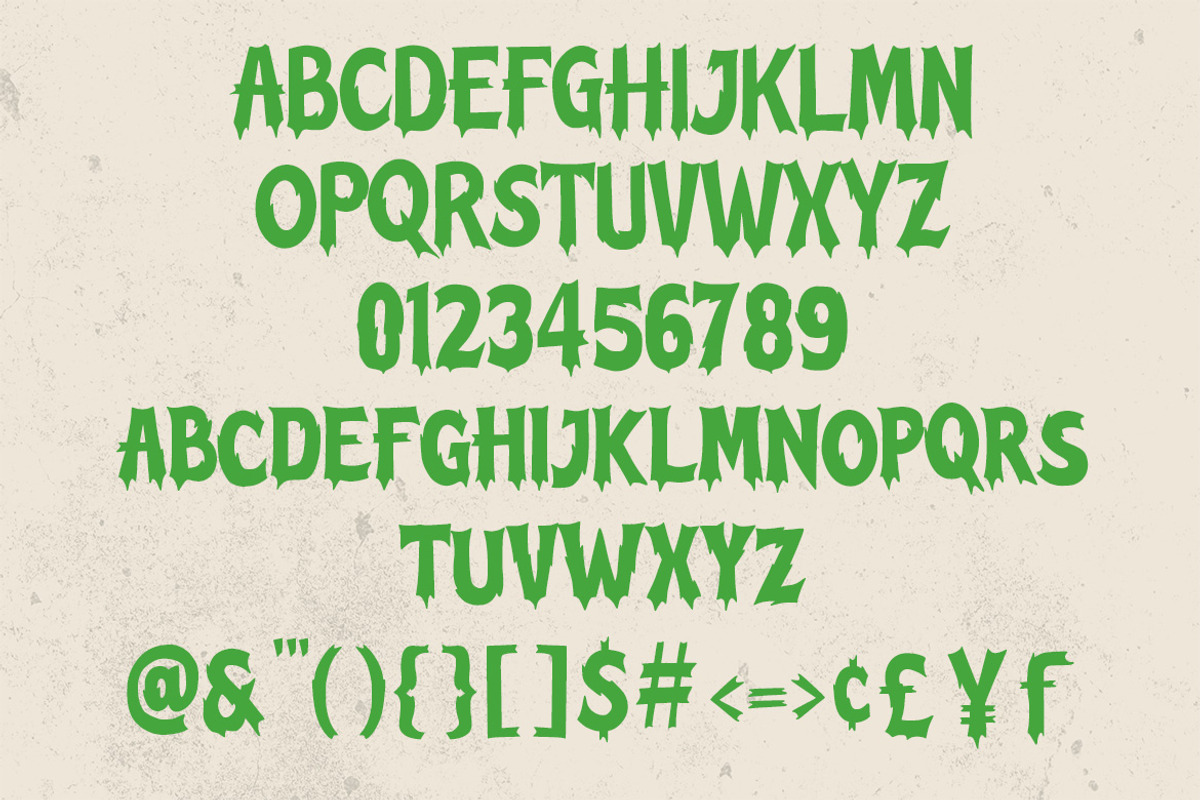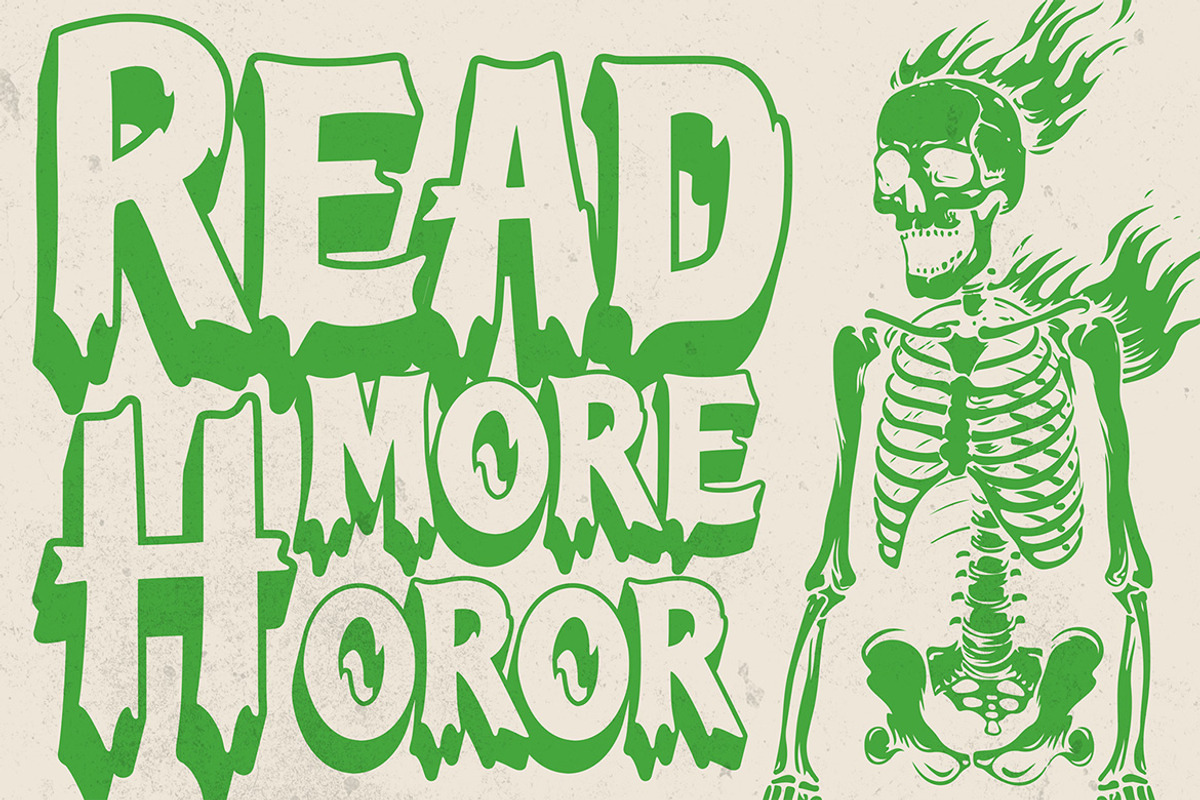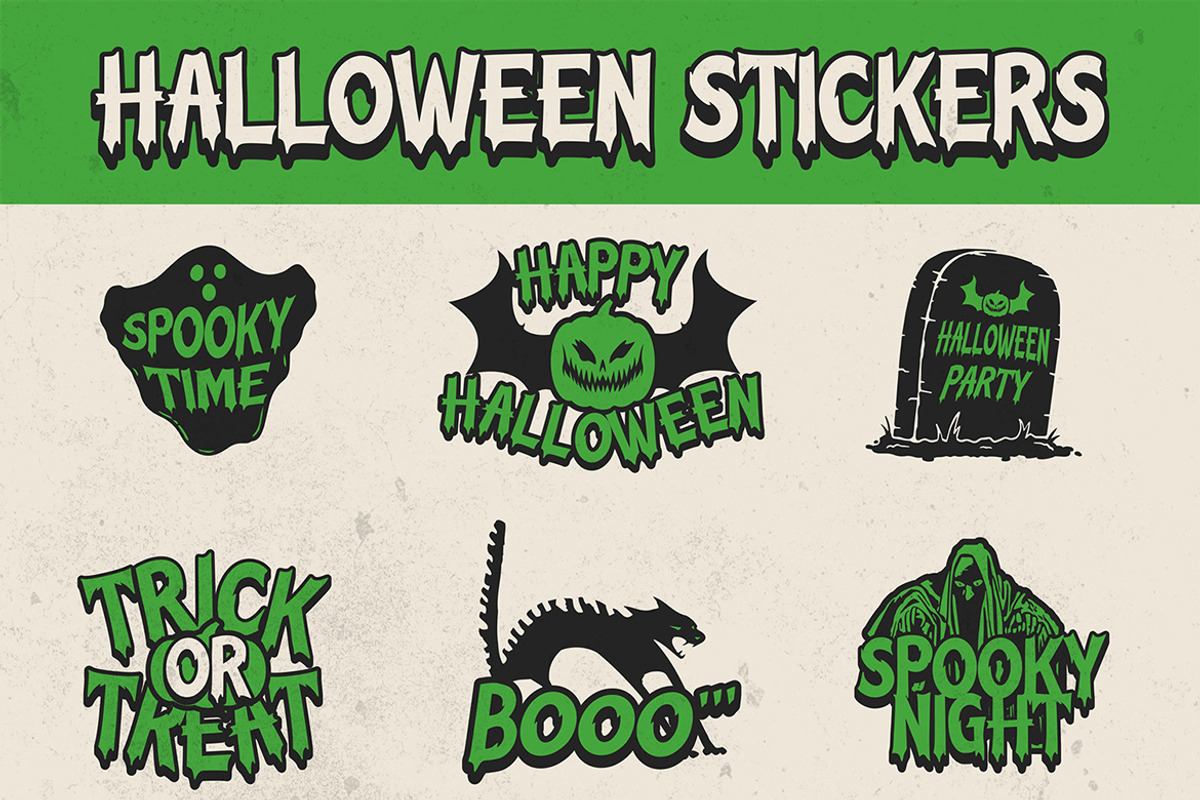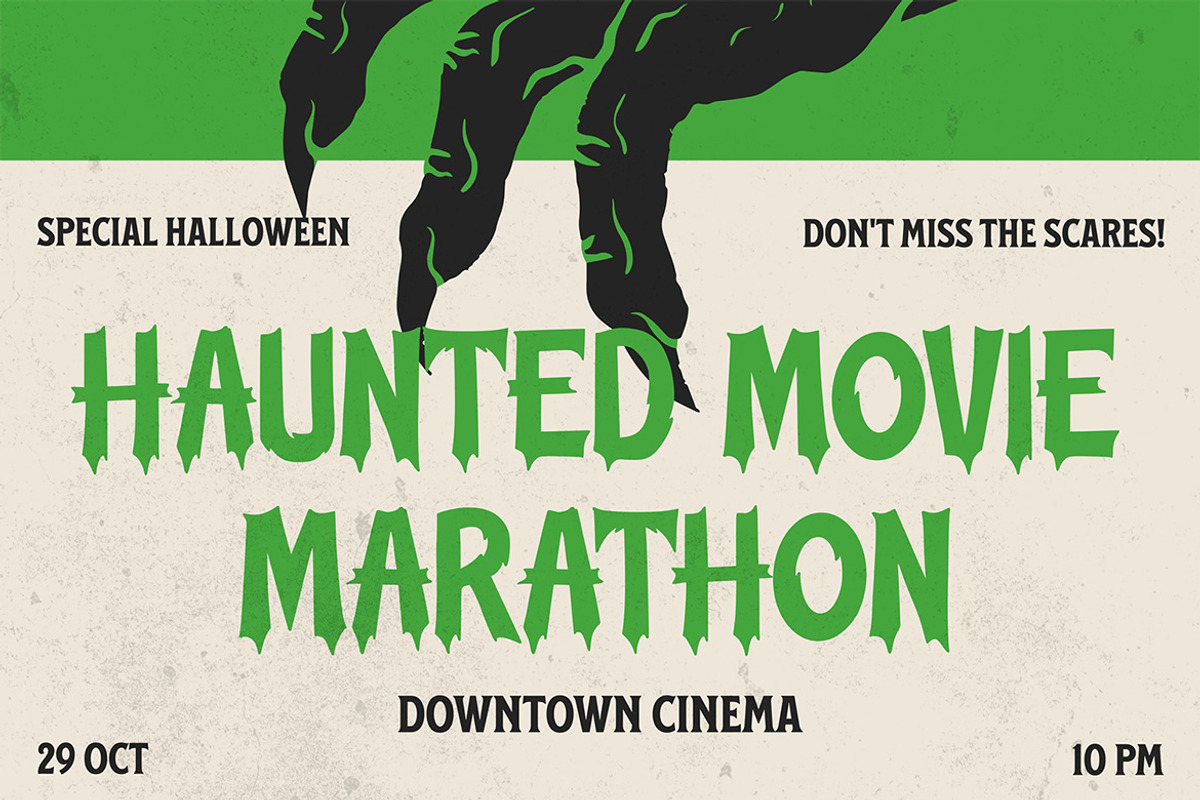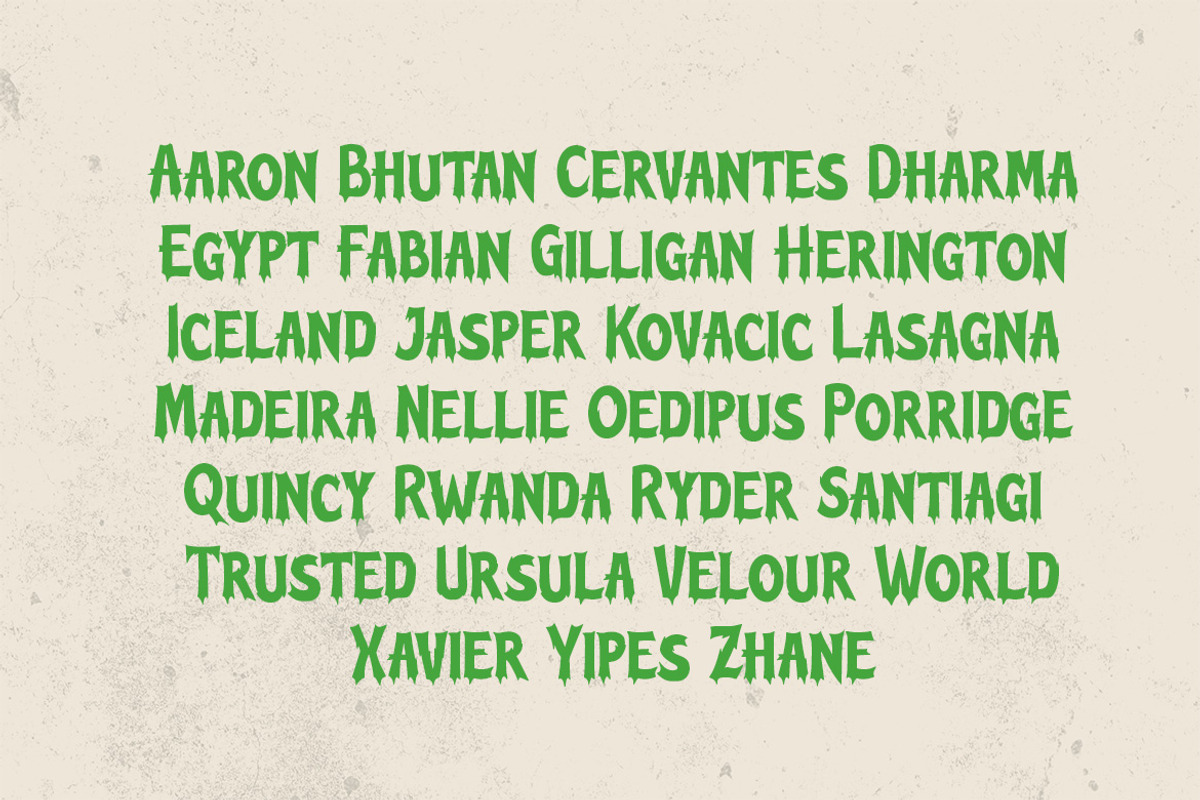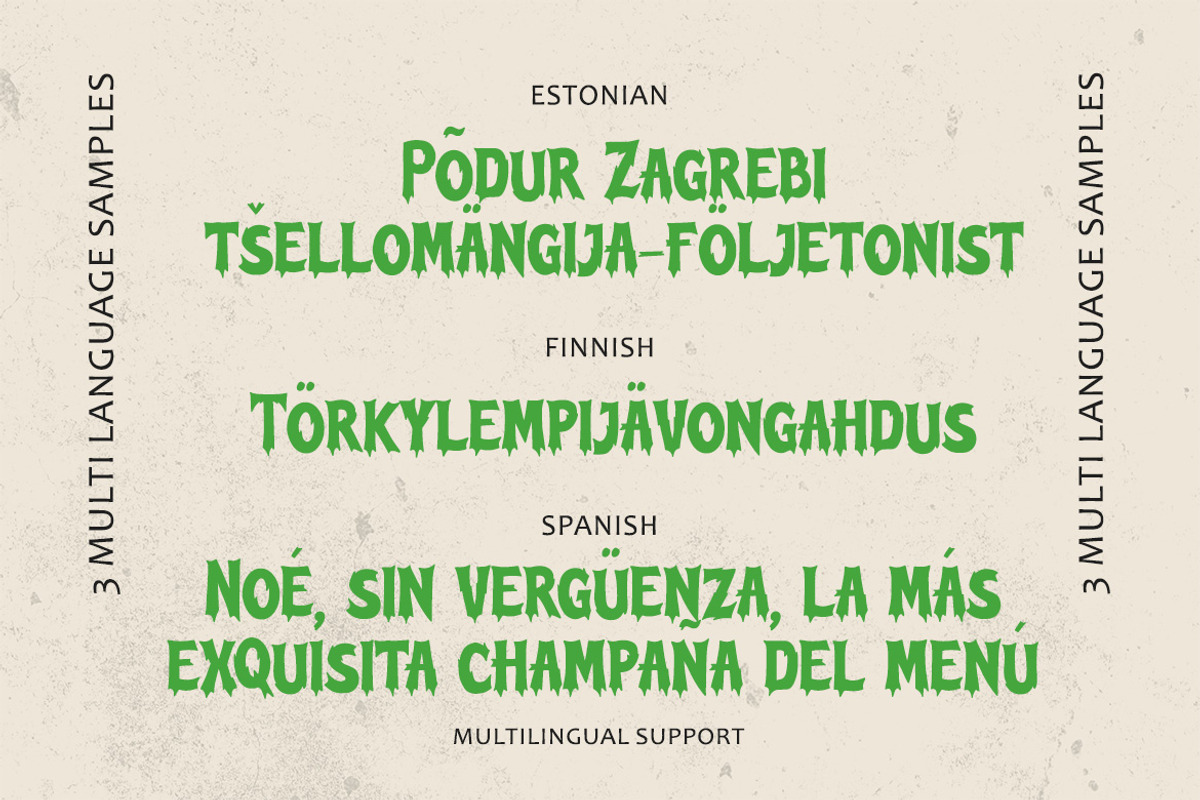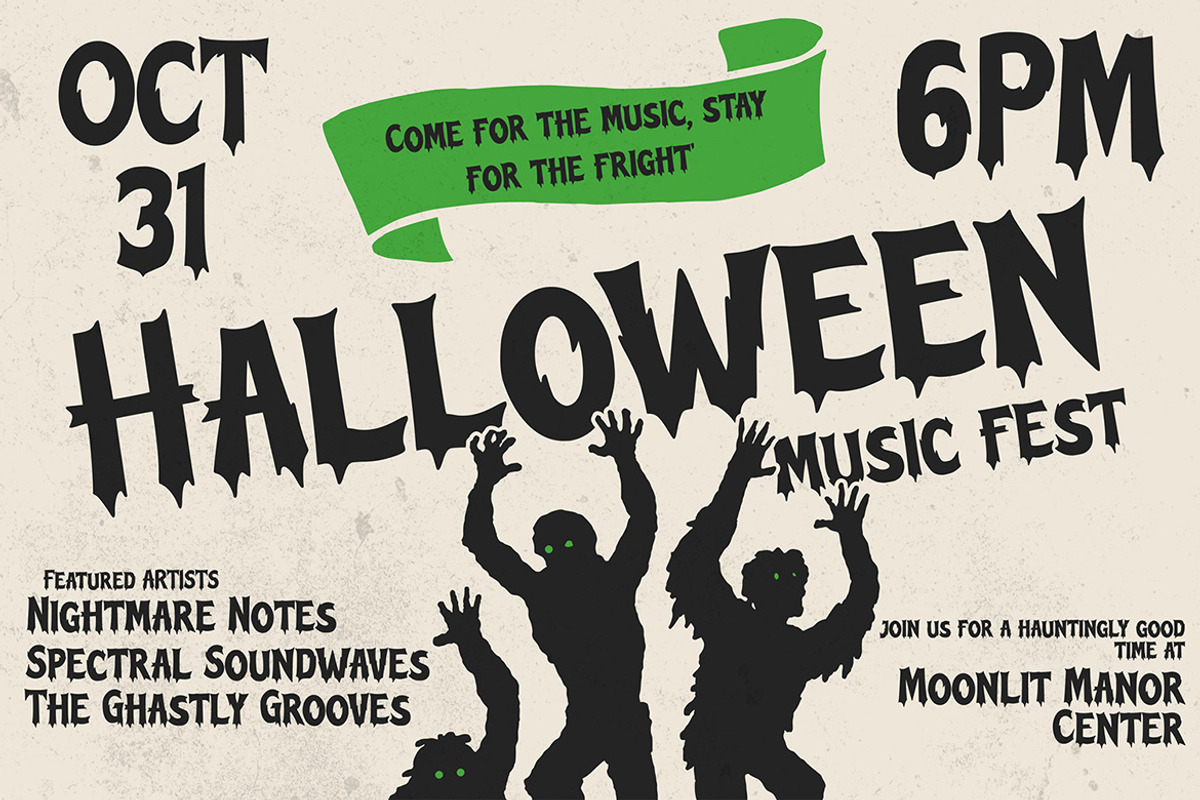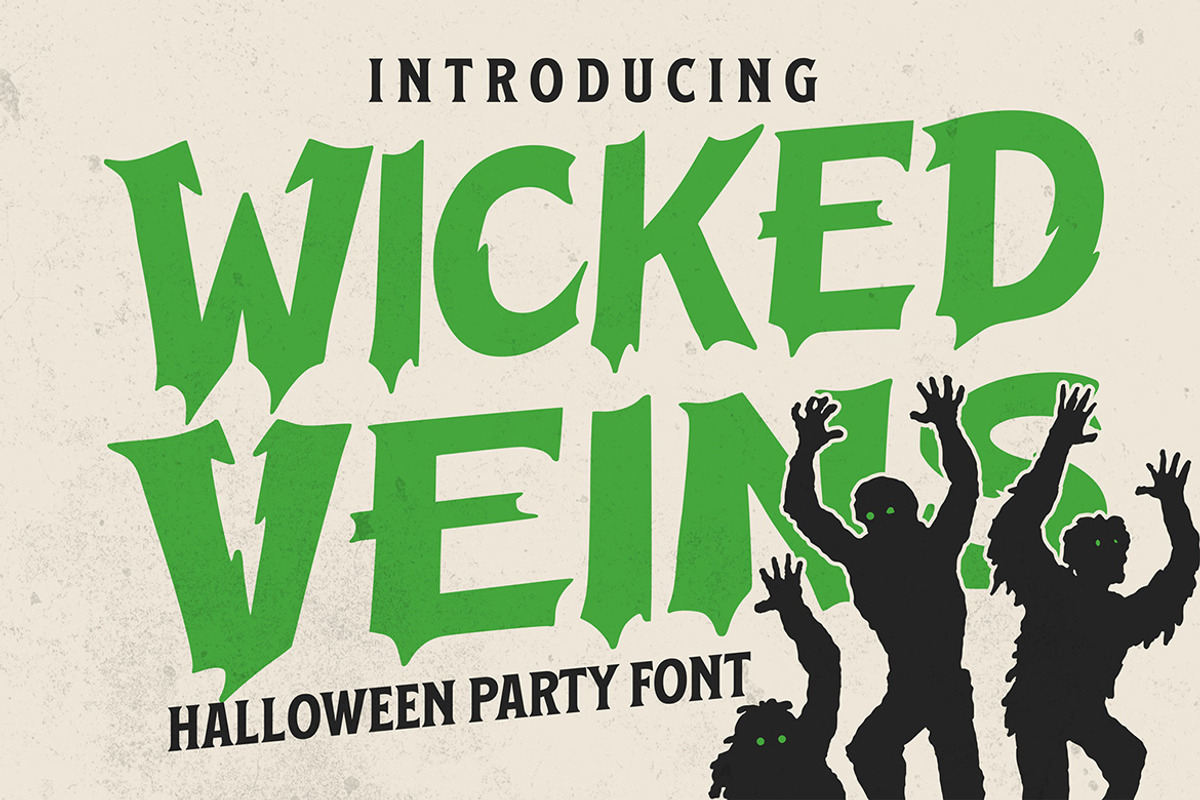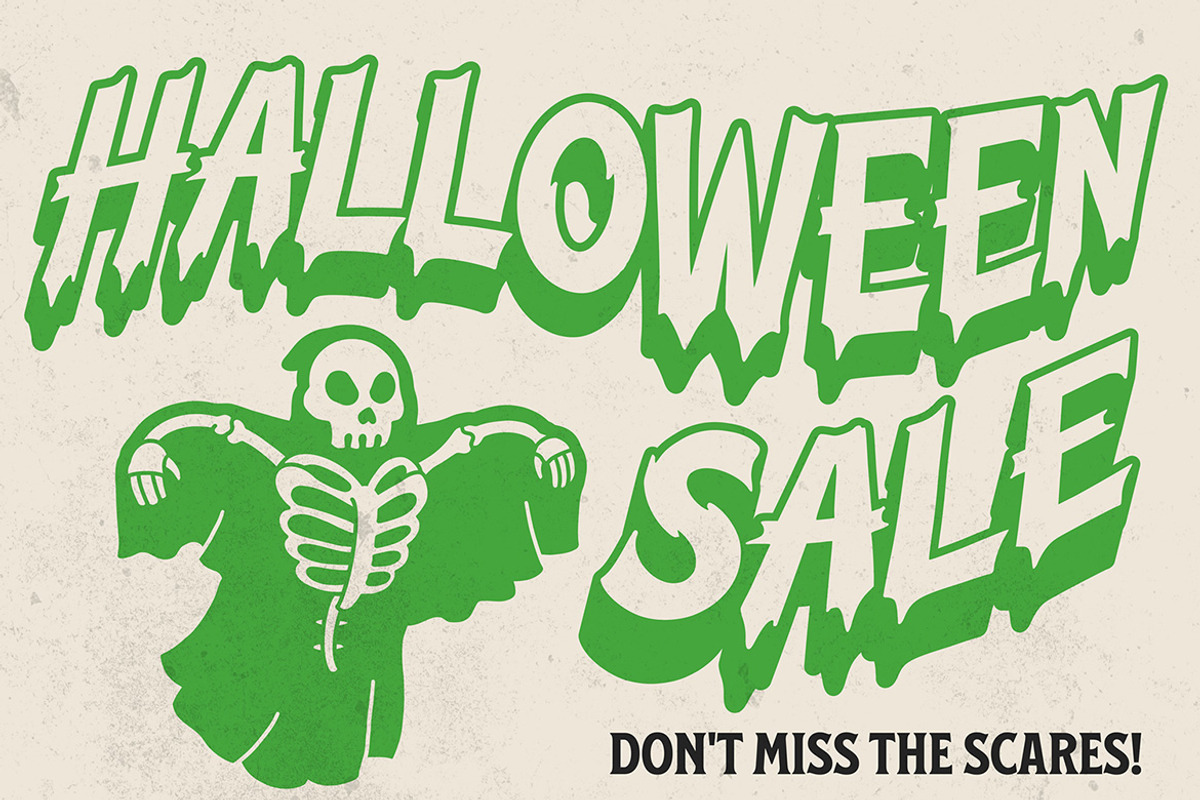
Wicked Veins – Halloween Font
Title: Wicked Veins – Halloween Party Font
Description:
Wicked Veins is a Halloween party font designed to capture the spooky thrill and eerie fun of the season. With bold letterforms and a sinister edge, this typeface is perfect for horror-themed posters, party invitations, merchandise, branding, and social media graphics. Its striking presence and haunting style bring a creepy yet playful energy, making it a great choice for any project that needs to stand out with a chilling twist. Wicked Veins embodies the essence of Halloween with a unique balance of fear and excitement, ensuring your designs leave a lasting impression during the spooky season.
Features : Uppercase and lowercase characters